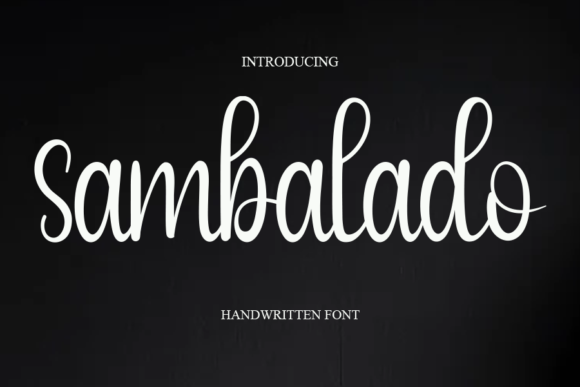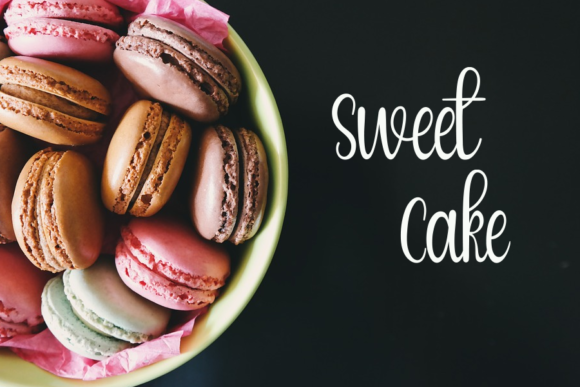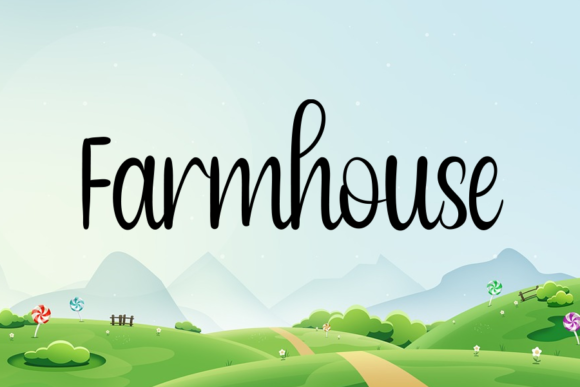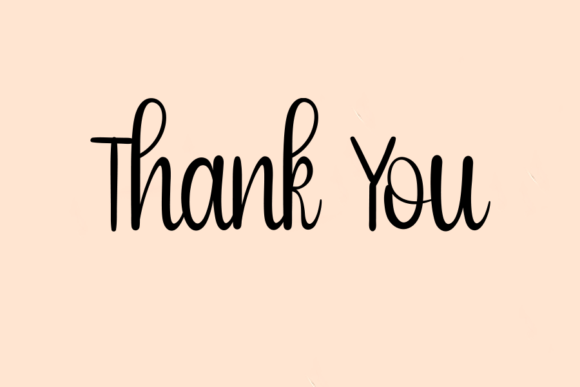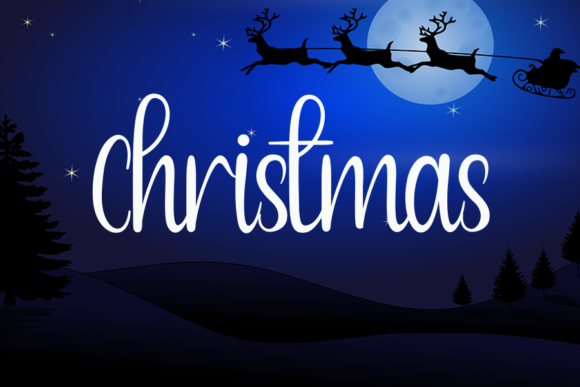
Sambalado Font
About Sambalado Font
Sambalado is a lovely, elegant and unique script font. Add this adaptable looking font to each of your love letters, wedding invitations or favorite design ideas, and you will be astounded by the outcome.